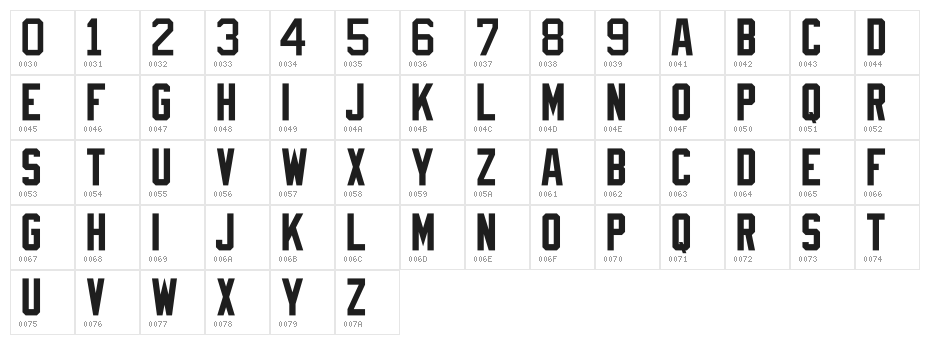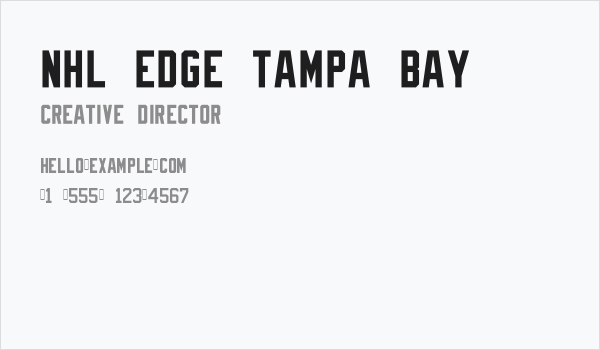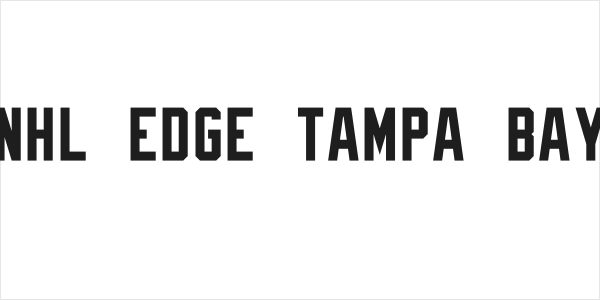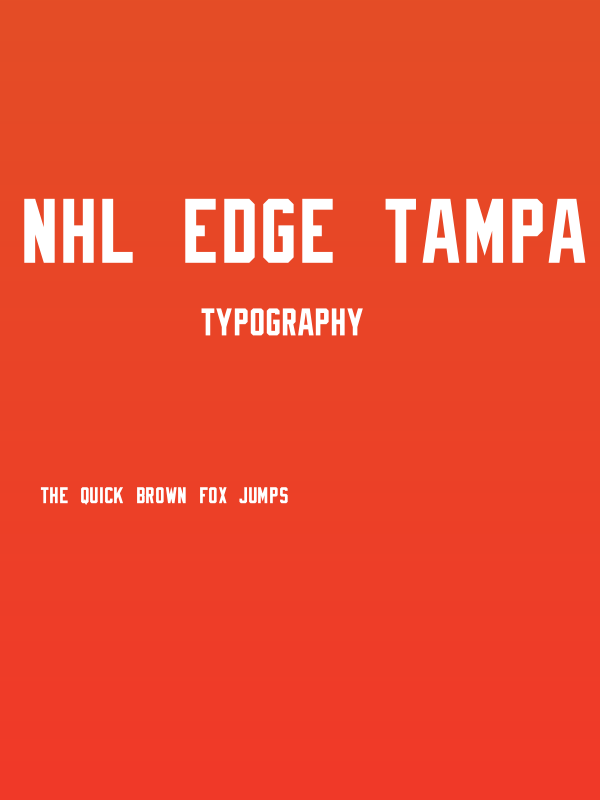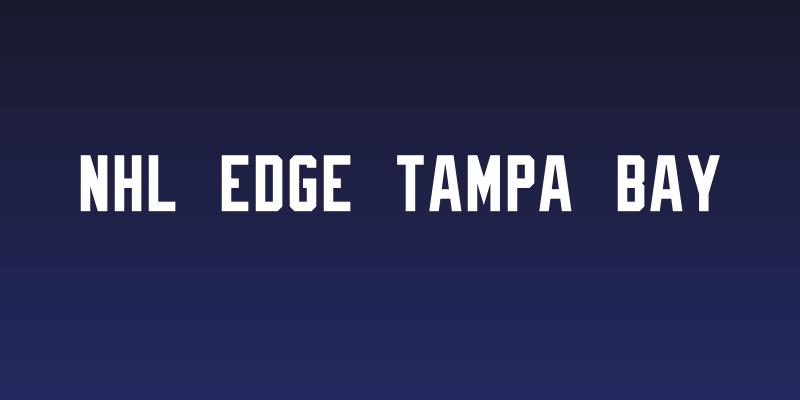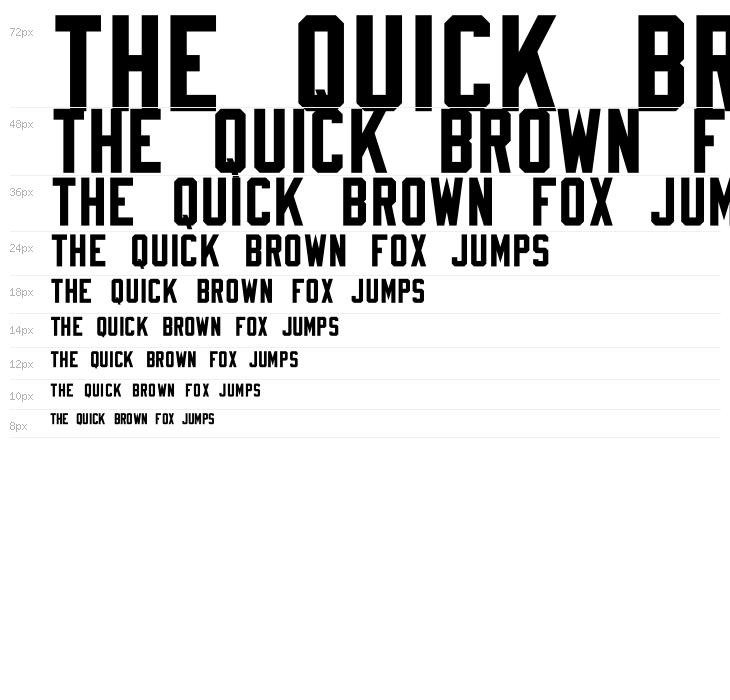
NHL Edge Tampa Bay Font
NHL Edge Tampa Bay Description
This font features a bold and impactful design, characterized by its strong geometric shapes and uniform stroke width. The uppercase letters are distinct with sharp angles and a blocky appearance, making them highly legible and attention-grabbing. The numerals follow the same bold style, ensuring consistency throughout. The font lacks lowercase letters and special characters, focusing on a straightforward and assertive aesthetic. Its design is reminiscent of sports team branding, with a modern and professional look that conveys strength and confidence.